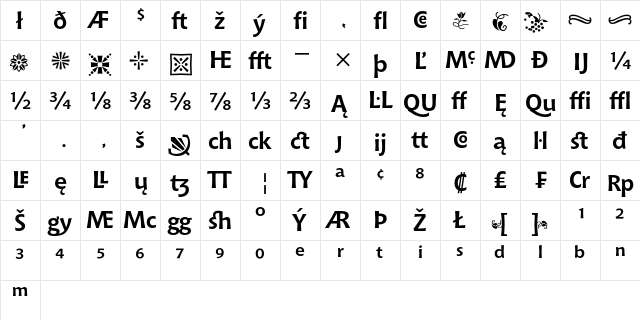
Bitstream Chianti Bold Extension Font Preview
Bitstream Chianti Bold Extension
Bitstream Chianti Bold Extension Font Details
Design Context for Bitstream Chianti Typeface
Bitstream Chianti offers clean, dependable letterforms without strong stylistic allegiance, making it a practical choice for designers who need flexibility. Its bold stroke weight gives it real presence on the page.
Pro Tip: Use Bitstream Chianti in both headline and body roles to test its range before committing to a single application.